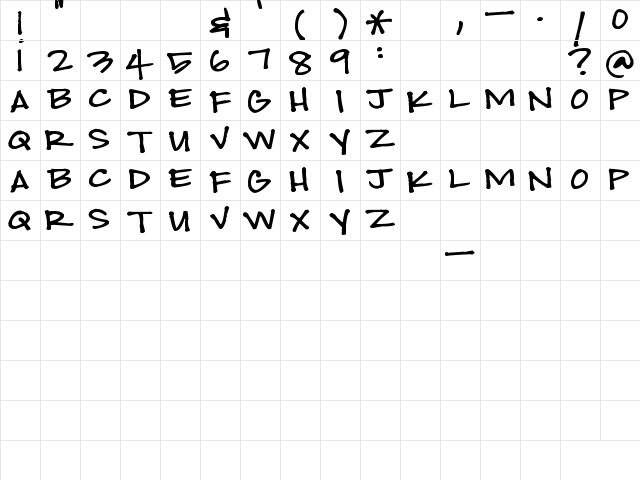
Pea Sarahloo Regular
Design Context for Pea Sarahloo Typeface
Pea Sarahloo takes a measured approach to typography — its balanced proportions and neutral character make it a reliable workhorse for both digital and print work.